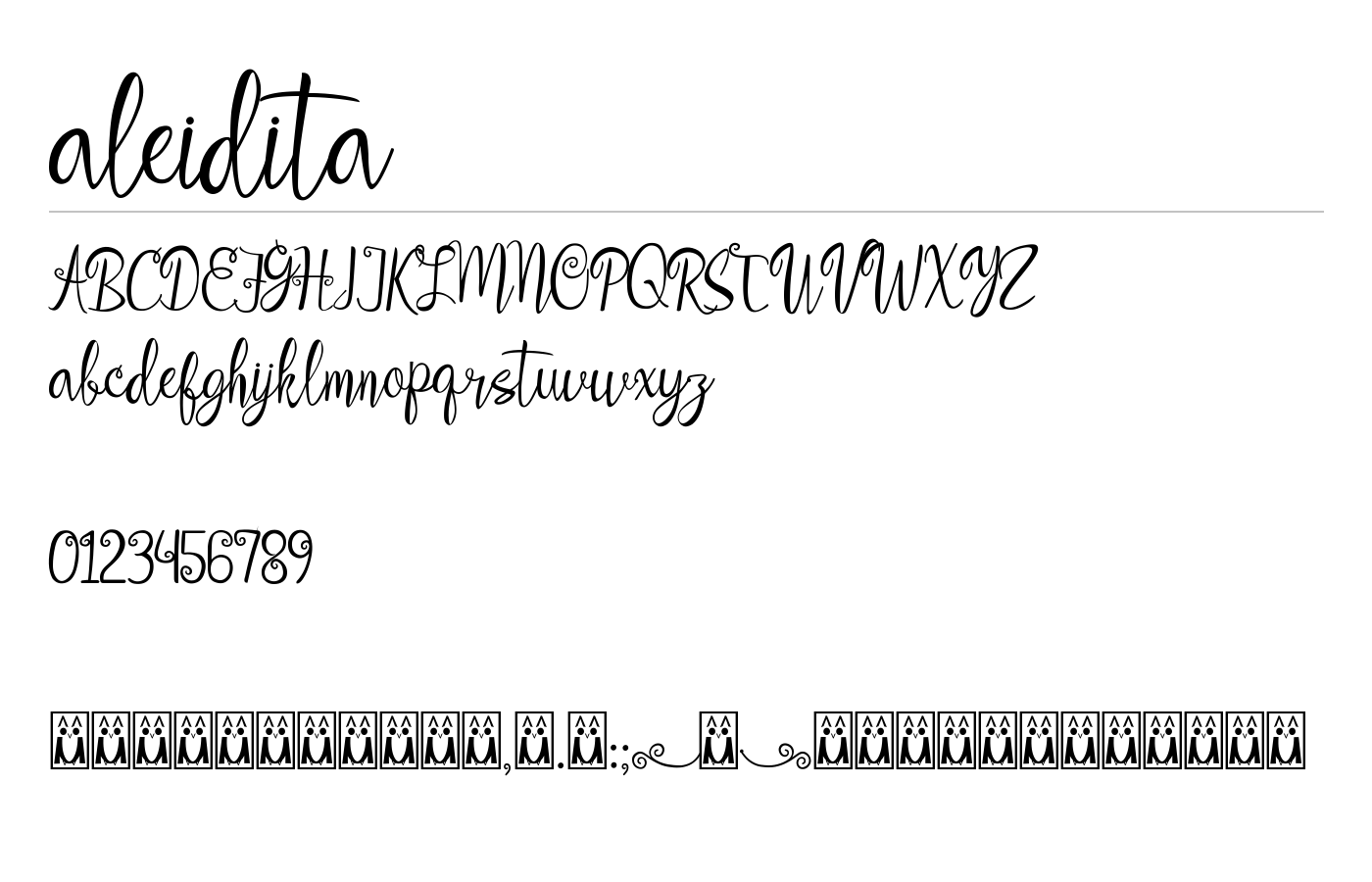
Aleidita is a delicate, playful script font with elegant, flowing letterforms and whimsical swirls that add charming personality. Its light weight and narrow proportions make it ideal for feminine and creative designs such as invitations, greeting cards, or boutique branding where a friendly yet sophisticated touch is desired. This font’s decorative nature shines best in headlines or short text, lending a graceful, artistic flair to projects.
aleidita Font
About aleidita Font